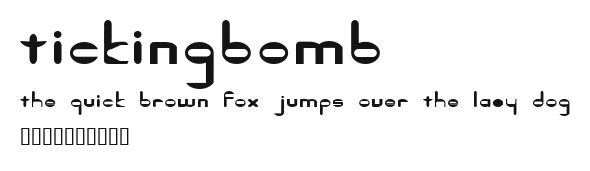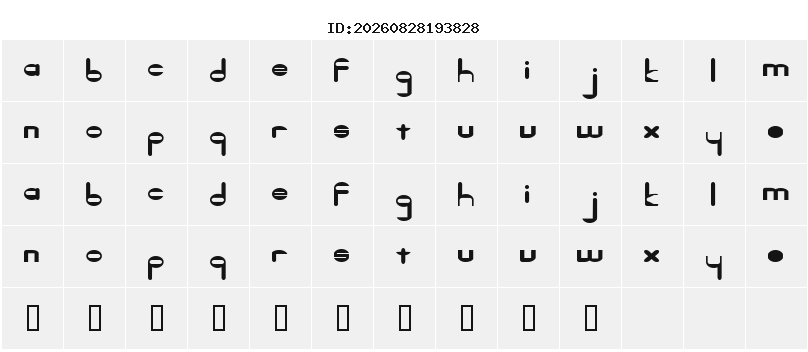
TickingBomb Preview
• Font Name: TickingBomb
• Full Font Name: TickingBomb
• PostScript Name: TickingBomb
About TickingBomb.ttf
TickingBomb.ttf is a modern, elegant sans-serif font designed for ultimate readability and visual harmony. Perfect for branding, headlines, web design, and print materials.